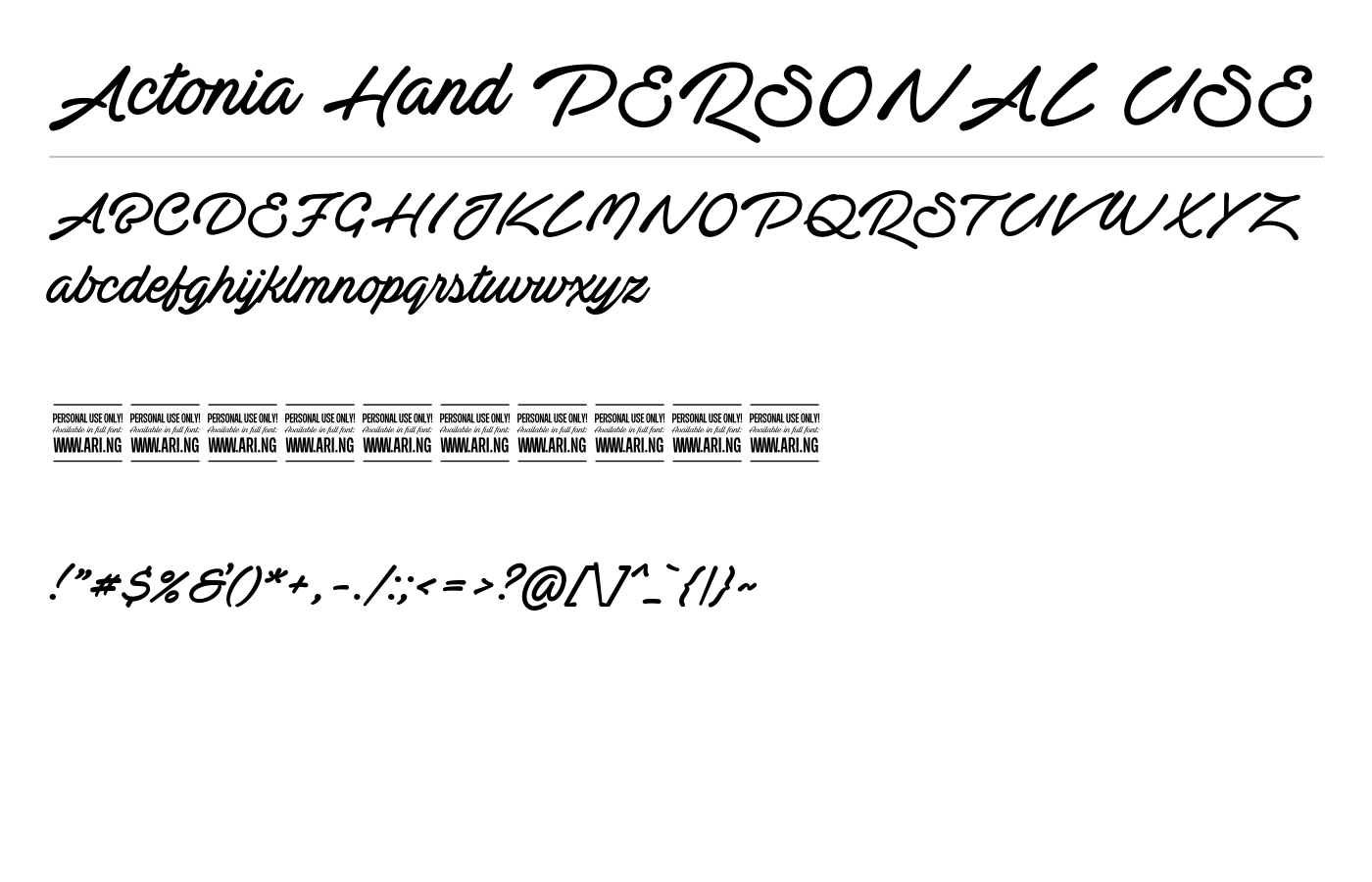
Actonia Hand is a lively, cursive script font that mimics natural handwriting with smooth, flowing strokes and a moderate contrast in thickness. Its elegant yet casual style makes it ideal for personal invitations, branding, and creative projects where a friendly and approachable feel is desired. This font works particularly well in logos, headlines, and packaging where a touch of warmth and personality is needed.
Actonia Hand PERSONAL USE Font
About Actonia Hand PERSONAL USE Font